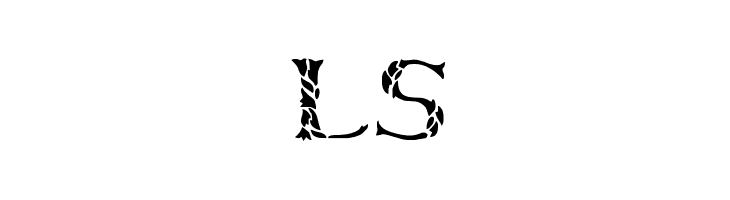
A bold, woodgrain-textured font with a rustic, decorative style.
A bold, geometric font with a three-dimensional effect and sharp angles.
A bold, angular font with sharp, arrowhead-like serifs.
A bold, shadowed font with angular edges and a three-dimensional effect.
Ornate, decorative initials with intricate floral and cherubic designs.
A bold, decorative font with a chiseled, textured appearance.
A decorative font with bold characters enclosed in vintage-style squares.
A decorative font with bold letters adorned by intricate feather designs.
A bold, decorative font with a 3D effect and intricate patterns.
A bold, decorative stencil font with intricate leaf patterns.